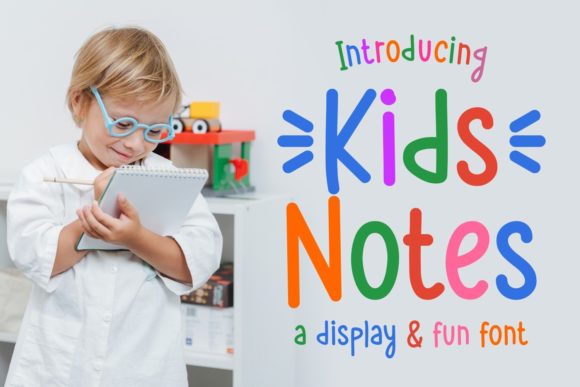
Kids Notes Font: The Perfect Addition to Your Design Library
Kids Notes Font is a fun and playful display font that mimics a casual handwriting style, making it an ideal addition to your design library. This font is perfect for kid’s crafts, school projects, prints, or digital designs that require a youthful and energetic effect.
What is Kids Notes Font?
Kids Notes Font is a display font designed to resemble casual handwriting. Its playful and carefree style makes it perfect for designs that require a personal touch. The font is easy to read and has a friendly feel to it, making it suitable for a wide range of applications.
Uses of Kids Notes Font
Kids Notes Font can be used in a variety of ways, including:
- Kid’s crafts: Kids Notes Font is perfect for creating fun and engaging crafts for kids. You can use it to create titles, headings, and body text for craft projects.
- School projects: Students can use Kids Notes Font to add a personal touch to their school projects. The font is easy to read and has a friendly feel to it, making it suitable for presentations, posters, and reports.
- Prints: Kids Notes Font can be used to create fun and playful prints, such as flyers, brochures, and posters.
- Digital designs: The font can be used in digital designs, such as social media graphics, blog posts, and website headers.
Benefits of Kids Notes Font
Kids Notes Font offers several benefits, including:
- Unique and playful style: Kids Notes Font has a unique and playful style that sets it apart from other fonts.
- Easy to read: The font is easy to read, making it suitable for body text and headings.
- Versatile: Kids Notes Font can be used in a wide range of applications, from kid’s crafts to digital designs.
- Youthful effect: The font has a youthful and energetic effect, making it perfect for designs that require a playful touch.
Tips for Using Kids Notes Font
Here are some tips for using Kids Notes Font:
- Use it for headings and titles: Kids Notes Font is perfect for headings and titles. Use it to add a playful touch to your designs.
- Mix it with other fonts: Kids Notes Font can be paired with other fonts to create a unique and interesting design.
- Use it in combination with images: The font can be used in combination with images to create a fun and engaging design.
- Experiment with different colors: Kids Notes Font can be used with a wide range of colors. Experiment with different colors to find the perfect combination for your design.
Font Pairing Ideas with Kids Notes Font
Kids Notes Font can be paired with other fonts to create a unique and interesting design. Here are some font pairing ideas:
- Open Sans: Open Sans is a clean and modern font that pairs well with Kids Notes Font.
- Lato: Lato is a sans-serif font that pairs well with Kids Notes Font. The combination of the two fonts creates a fun and playful design.
- Merriweather: Merriweather is a serif font that pairs well with Kids Notes Font. The combination of the two fonts creates a classic and elegant design.
Kids Notes Font is a fun and playful display font that mimics a casual handwriting style. It is the perfect font to have in your library for kid’s crafts, school projects, prints, or digital designs that require a youthful effect. With its unique and playful style, Kids Notes Font is sure to add a personal touch to your designs.